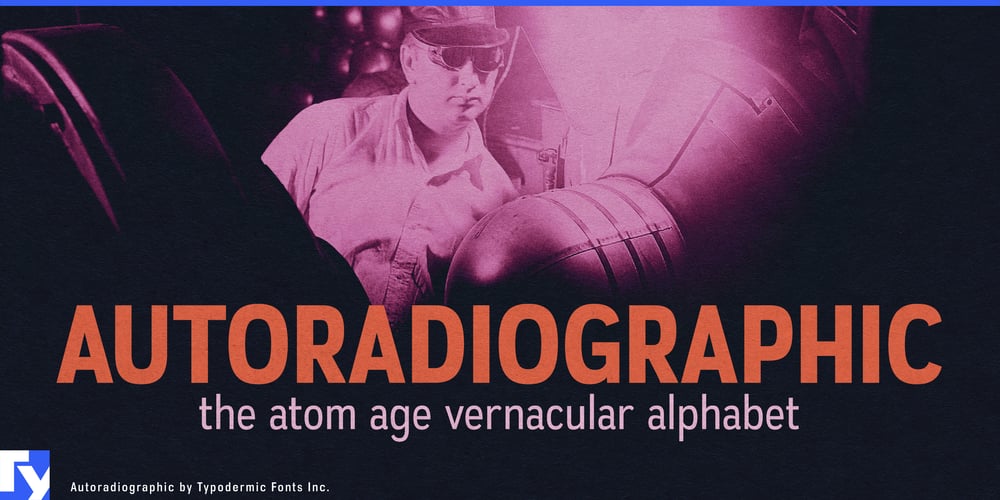
Autoradiographic Font Family was designed by Ray Larabie and published by Typodermic. Autoradiographic contains 10 styles and family package options. Attention, design enthusiasts! Hold onto your hats because Autoradiographic is here to electrify your typography!Straight out of the atomic age, this typeface packs more punch than a double feature at the drive-in! Inspired by those snazzy post-war warning signs, Autoradiographic brings a bang of personality to every page it graces. But don’t let its retro roots fool you—this font’s got more tricks up its sleeve than a magician at a county fair! Need to crunch numbers? Autoradiographic’s got your back with a full set of mathematical symbols, fractions, and currency signs. It’s like having an accountant and a graphic designer rolled into one!And when you want to add some serious zazz? Those narrow, loosely spaced italics will make your words dance right off the page! Available in five weights plus italics, Autoradiographic speaks volumes in a host of Latin-based languages. From Albanian to Zulu, your message will come through loud and clear—no translator required!So don’t be a square! Give your designs a shot of mid-century moxie with Autoradiographic. It’s the bee’s knees, the cat’s pajamas, and the typographic equivalent of a perfect martini—shaken, not stirred!